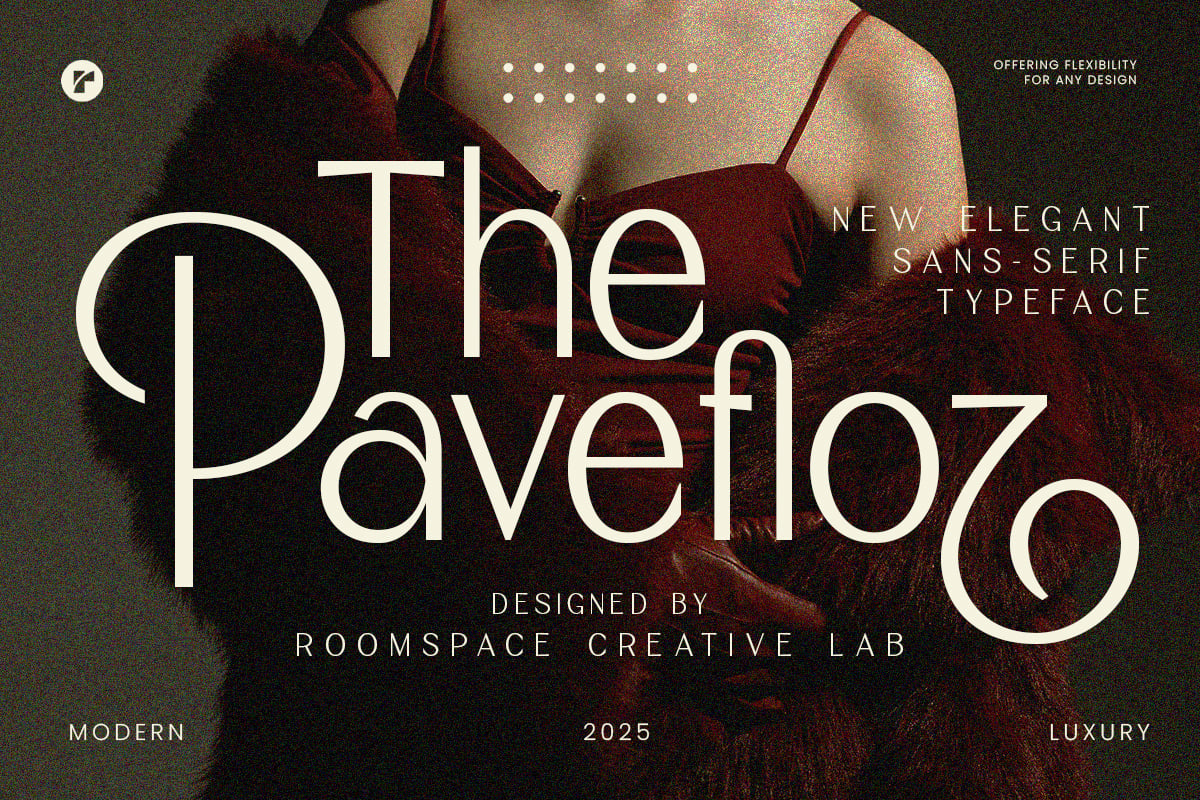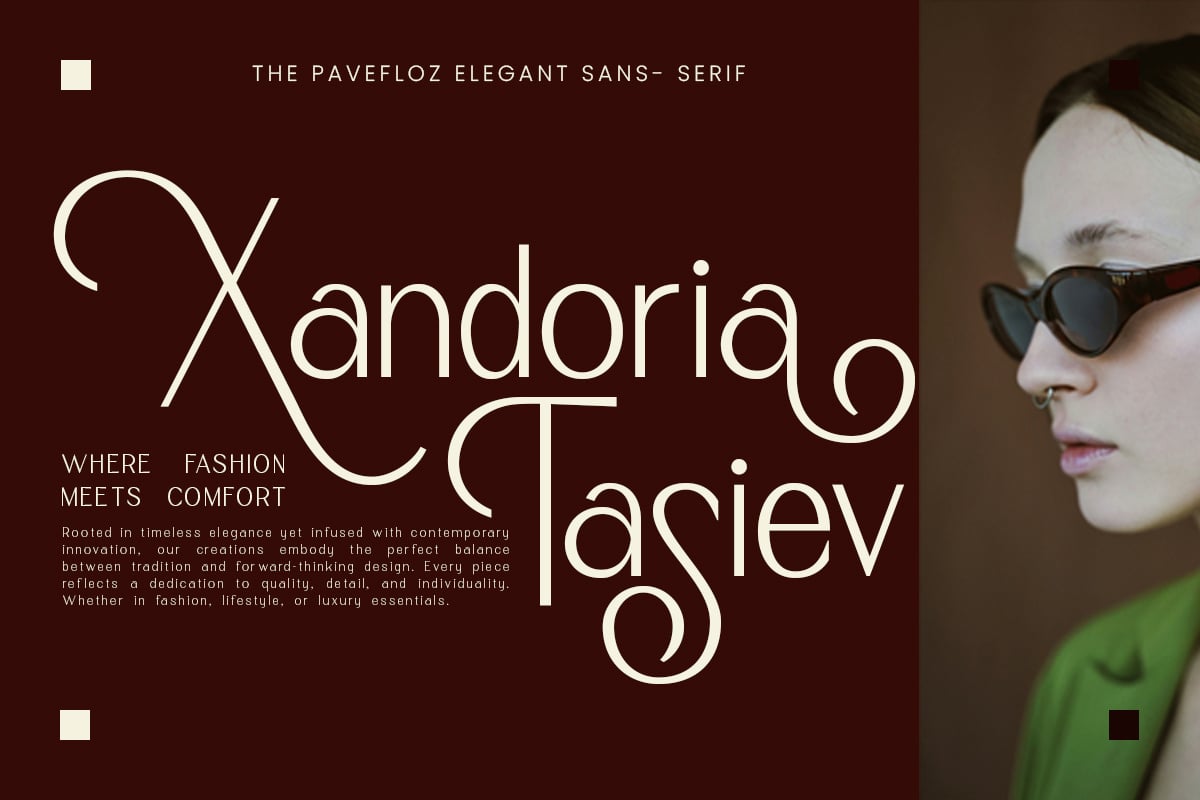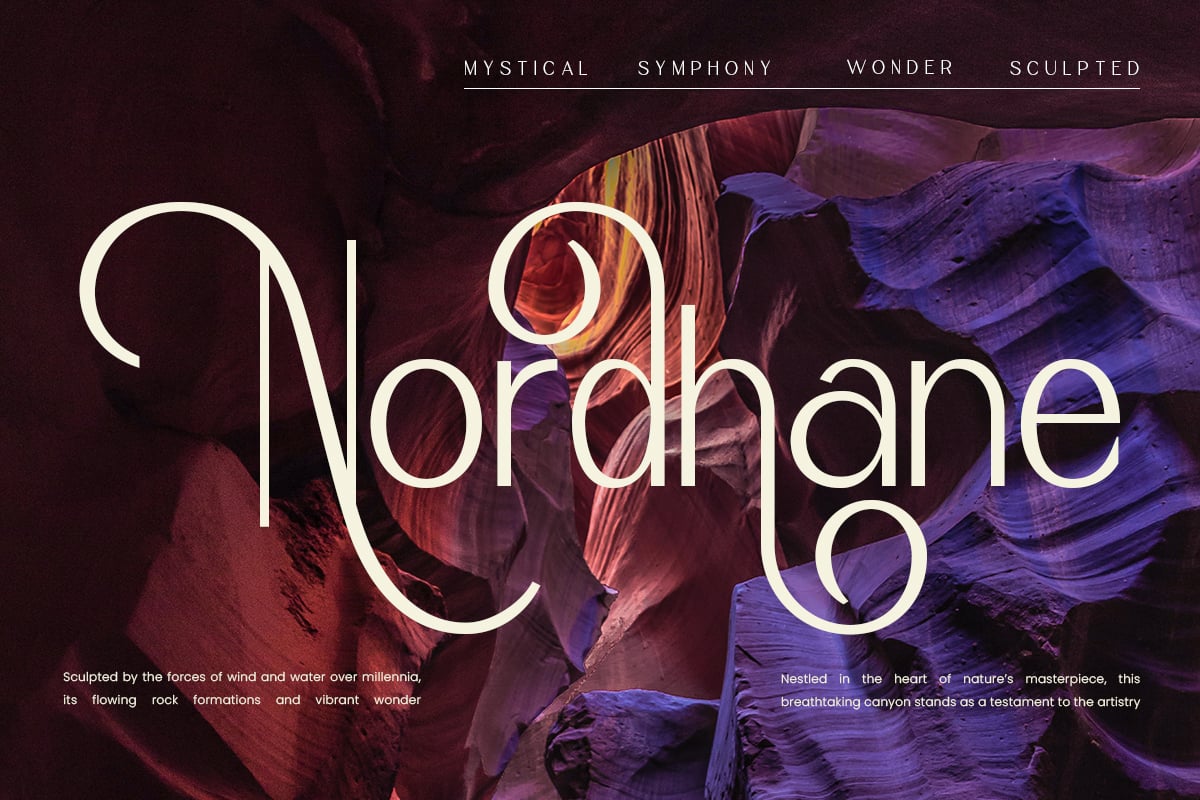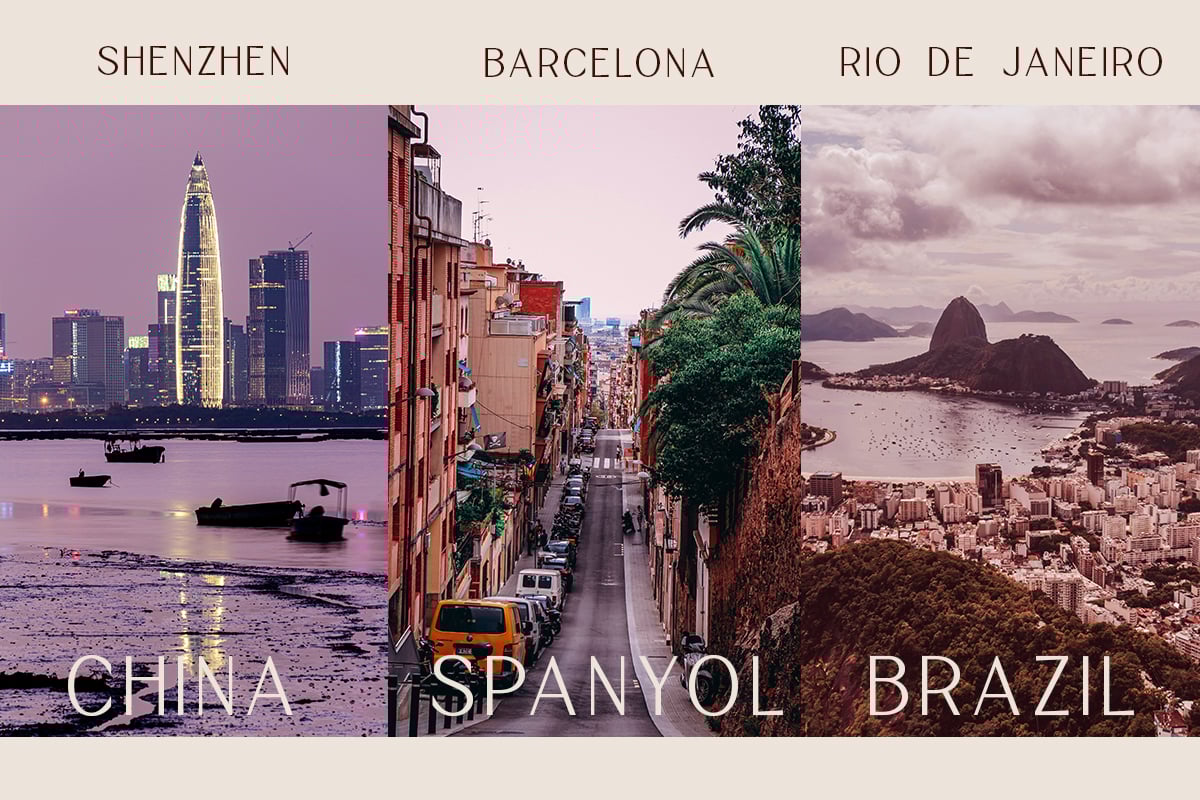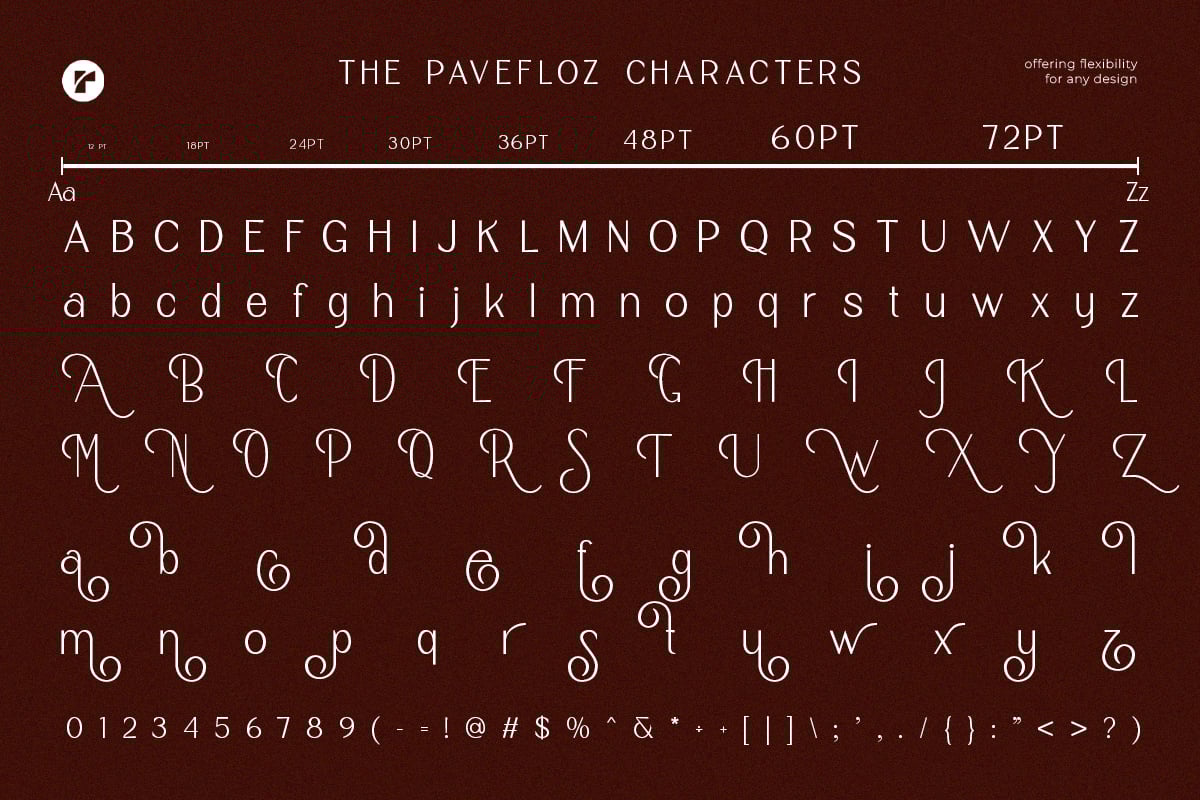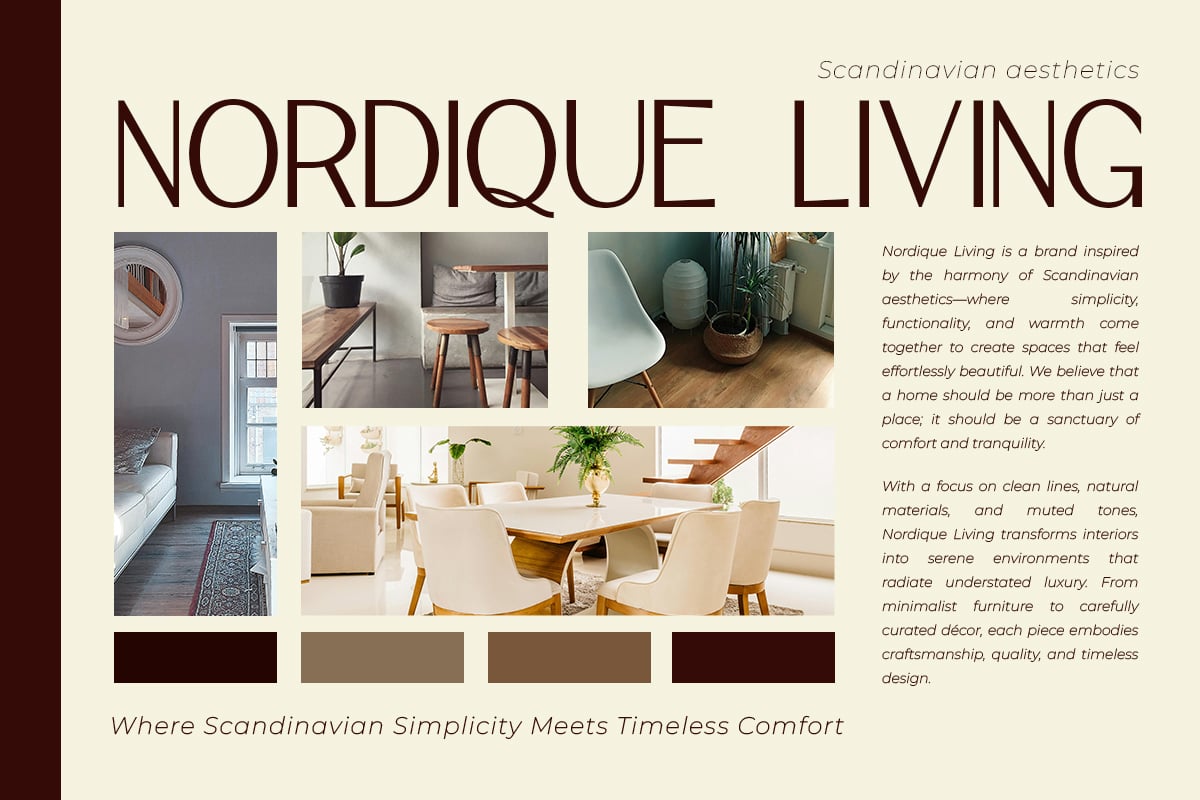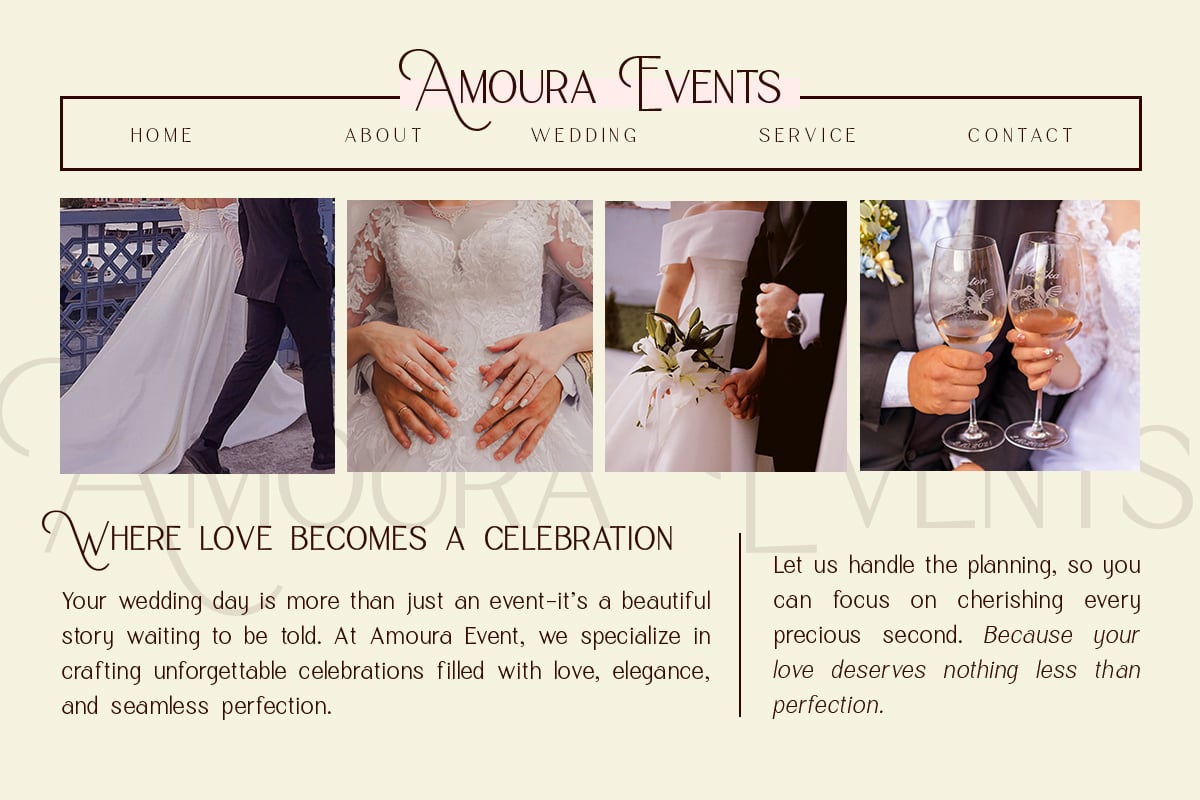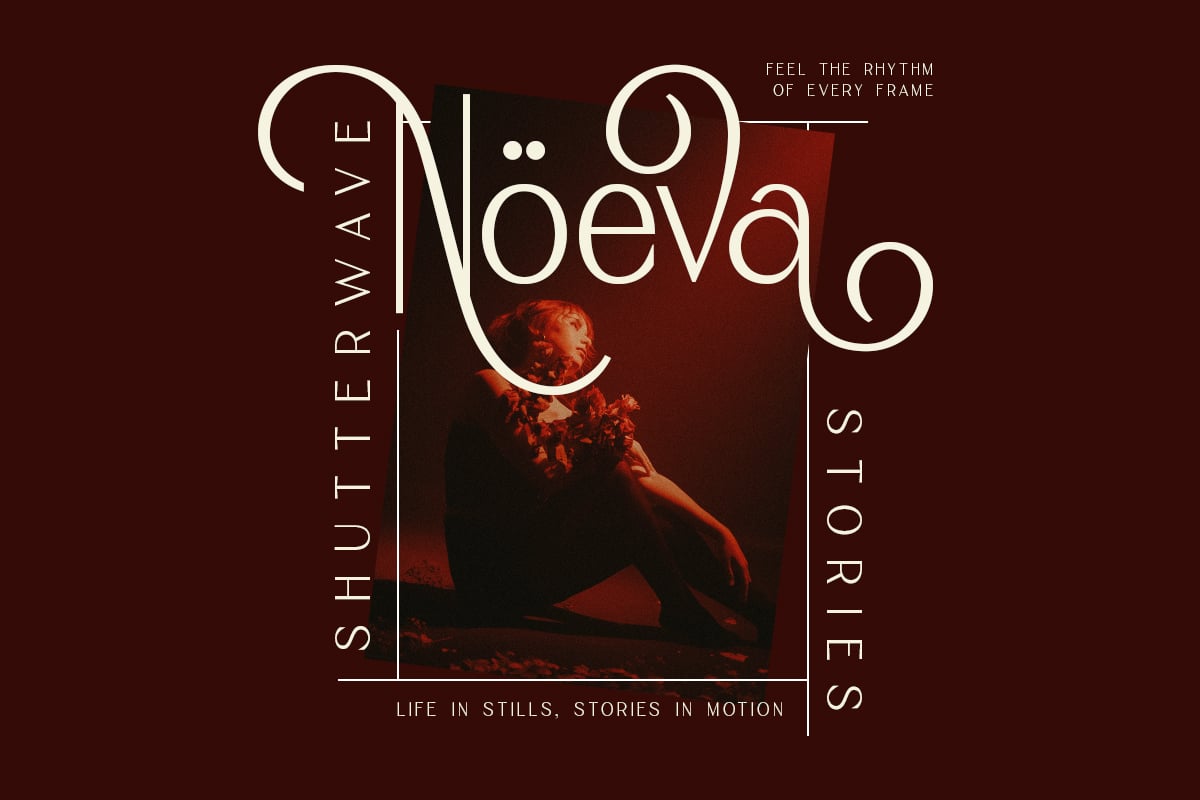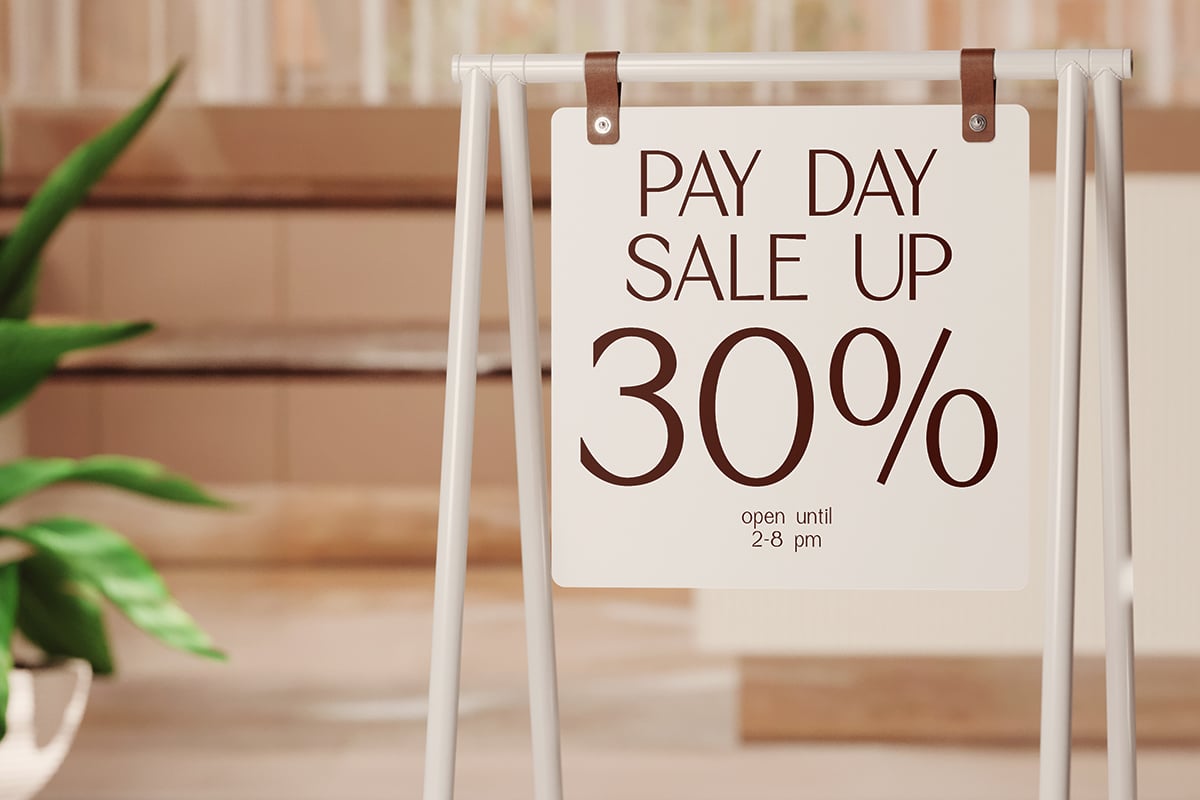
The Pavefloz – Elegant Minimalist Feminine Font
The Pavefloz, a beautifully crafted sans-serif typeface designed to bring a sense of elegance, modernity, and sophistication to your creative projects. This font is the perfect balance between minimalist aesthetics and decorative charm, making it an excellent choice for a wide range of branding, advertising, fashion, and business designs.
With its stylish curves and refined letterforms, The Pavefloz is ideal for logos, magazines, book covers, social media graphics, web fonts, and high-end packaging. Whether you’re designing for clothing brands, cosmetics, or editorial layouts, this typeface effortlessly enhances any project with its classy, soft, and feminine touch.